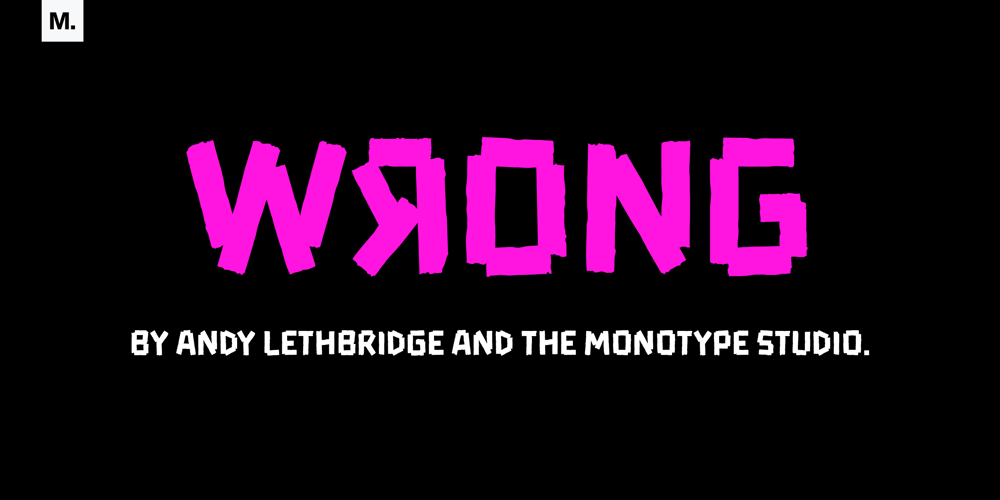
Wrong Font Family was designed by Andrew Lethbridge and published by Monotype. Wrong contains 1 styles and family package options. Wrong is all about the improv. Made with tape segments this font has a real DIY feel to it. It’s bold, solid and square-jawed. Its modular appearance gives it a constructed strength and it’s available with two sets of caps and stacks of attitude as standard.